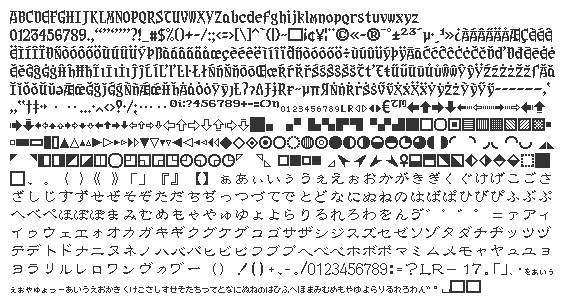
Sangoku4 is a modern-style serif pixel font recreation based on the original main text font appearing in the SNES video game Romance of The Three Kingdoms IV: Wall of Fire, known as Sangokushi IV in Japan, which was developed and released by Koei in 1994. This font includes the full set of Japanese hiragana and katakana characters appearing in the Japanese version of the game and many additional characters, each one of them designed to match the spirit and style of the original font design. To recreate the original in-game appearance of this font, I recommend using font sizes that are multiples of 16pt and avoid any anti-aliasing or other font smoothing methods. Features: • 808 characters total • Proportional/monospaced modern serif typeface • Countless additional special characters, diacritic variants, etc. • Full original Japanese hiragana and katakana character sets • Different variants of regular and tiny numbers Please contact me for any commercial use of my fonts. Copyright © 2016 Caveras. All rights reserved. |